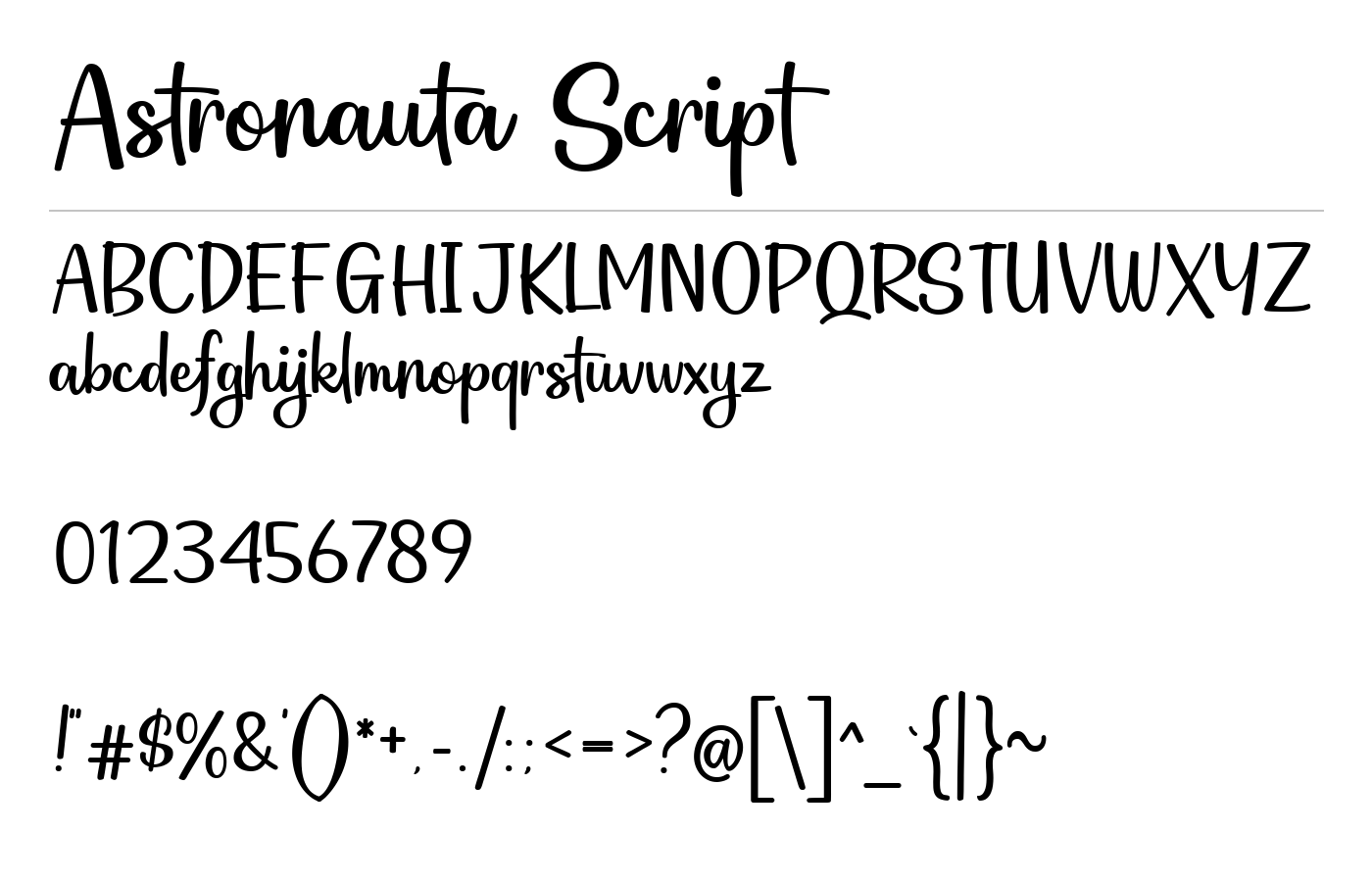
Astronauta Script is a lively and modern handwritten script font featuring smooth, rounded strokes with a clean, slightly playful feel. Its medium weight and balanced x-height make it legible and approachable, ideal for creating friendly, casual designs that still convey a sense of refinement. This font works wonderfully for branding, invitations, social media graphics, and fun editorial projects where a warm and personable touch is desired.
Astronauta Script Font
About Astronauta Script Font